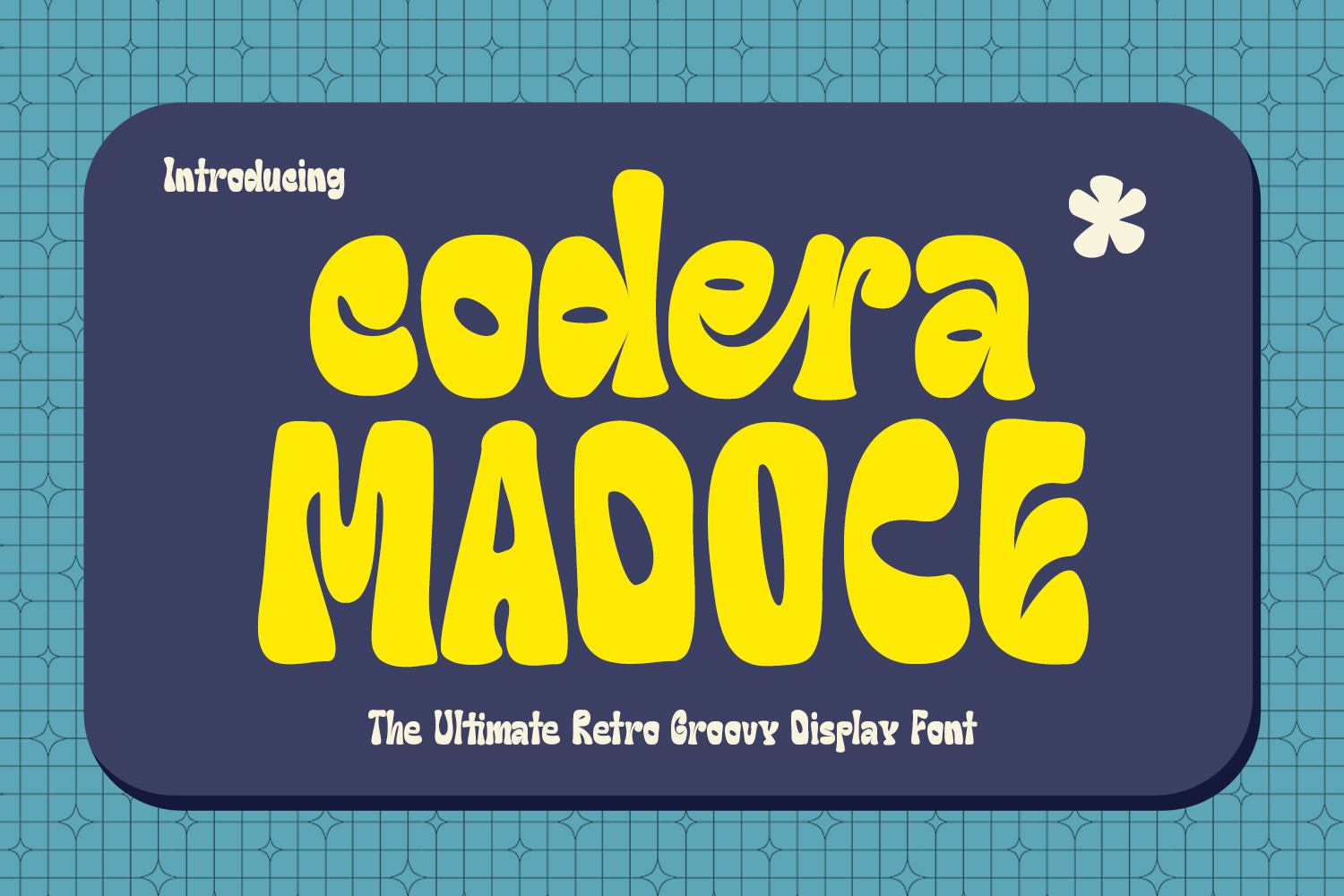
Codera Madoce Retro Groovy Display Font
Step back into the vibrant, soulful era of the 1970s with Codera Madoce, a font designed to bring rhythm and personality to your creative projects. This display font captures the essence of "flower power" and psychedelic culture, blending thick, organic curves with a modern, playful twist.
Whether you are designing a nostalgic logo, a bold concert poster, or eye-catching social media graphics, Codera Madoce provides an instant vintage vibe that feels fresh and trendy. Its unique wavy stems and "bubbly" appearance make it perfect for brands that want to stand out with warmth and approachability.
- Full Character Set: Uppercase and Lowercase letters that play perfectly together.
- Unique Ligatures: Specialized ligatures to add a custom, hand-lettered feel to your text.
- Numbers & Punctuation: A complete set of numerals and symbols for professional use.
- Multilingual Support: Ready for global design needs.